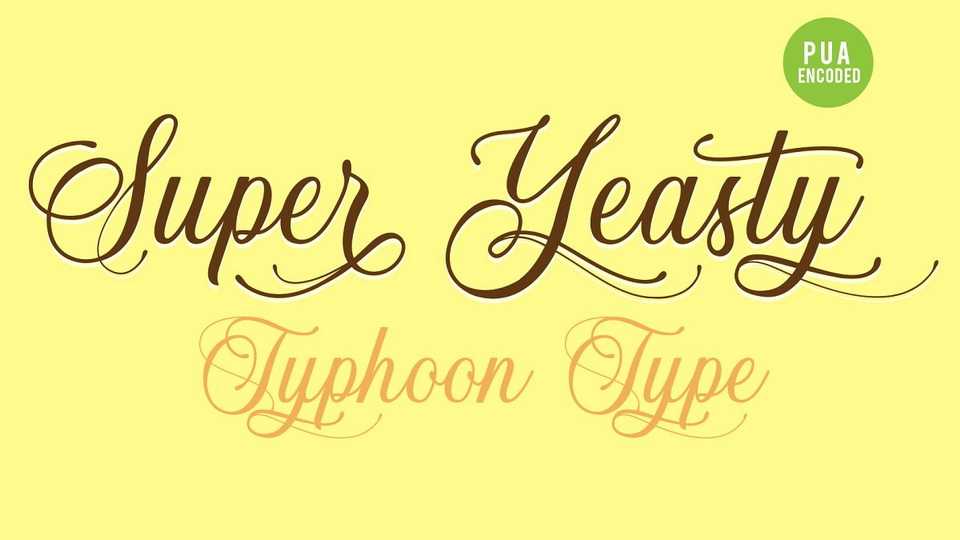
Download Super Yeasty font, an amazing modern calligraphy script with fancy swashes. Super Yeasty font is perfect for logos, name tag, advertising, product packaging, clothing, social media & greeting cards.
Designer: TyphoonType